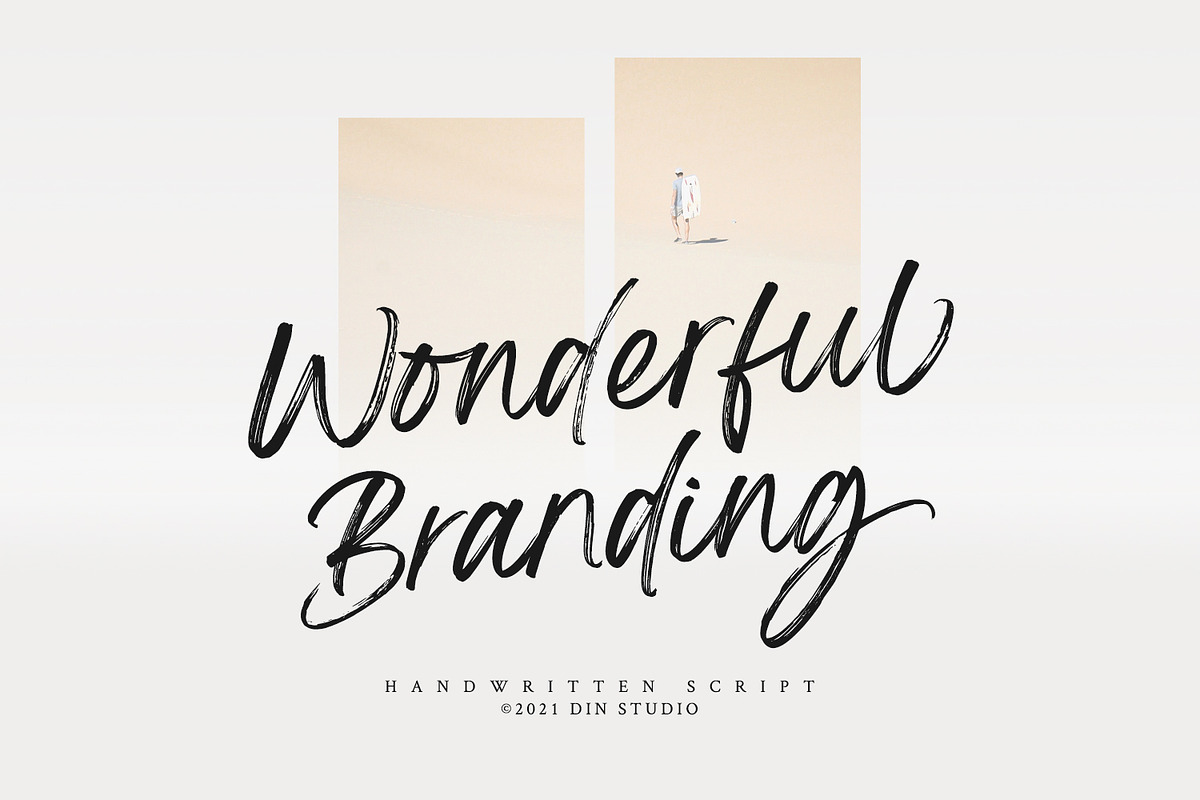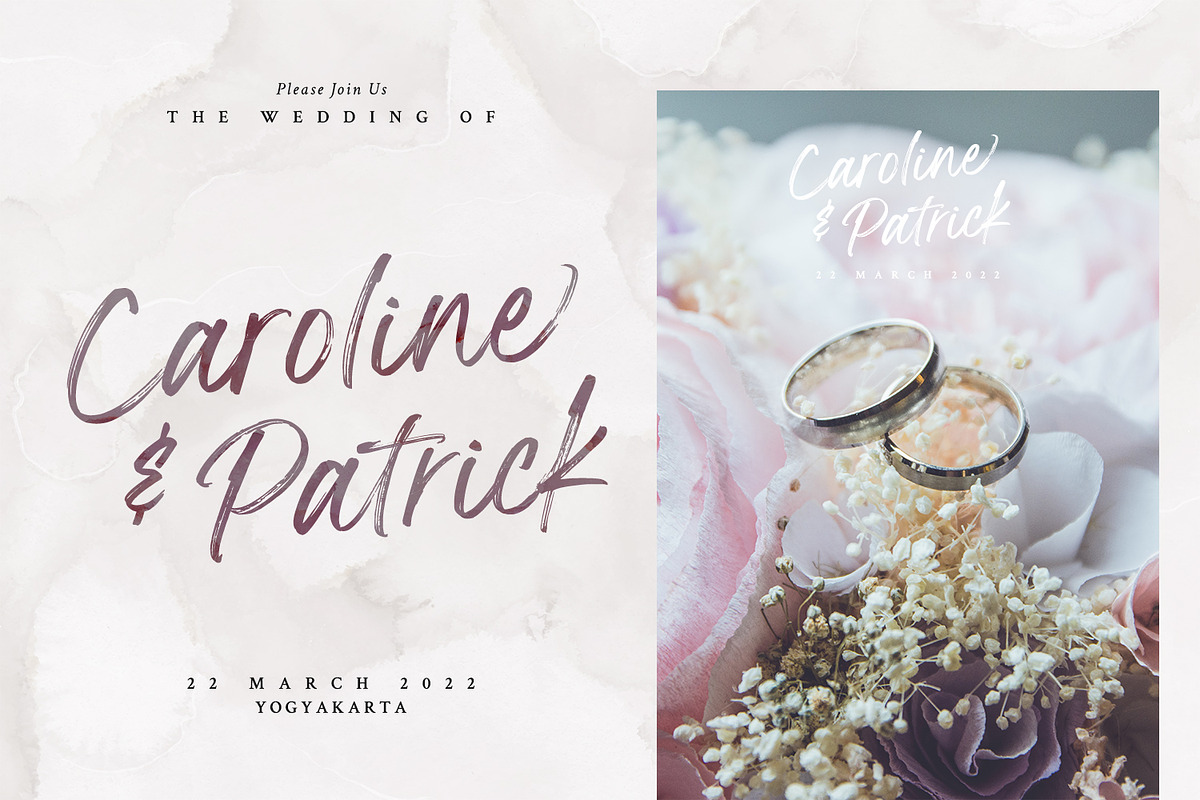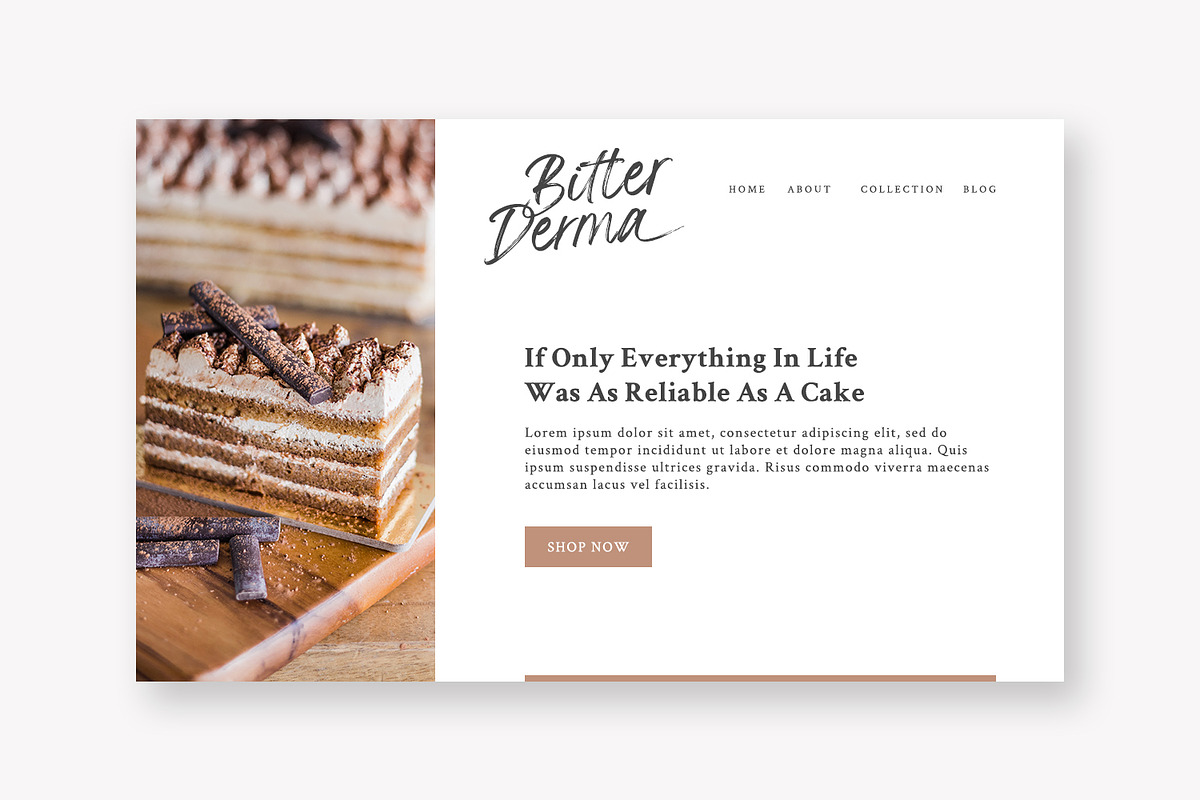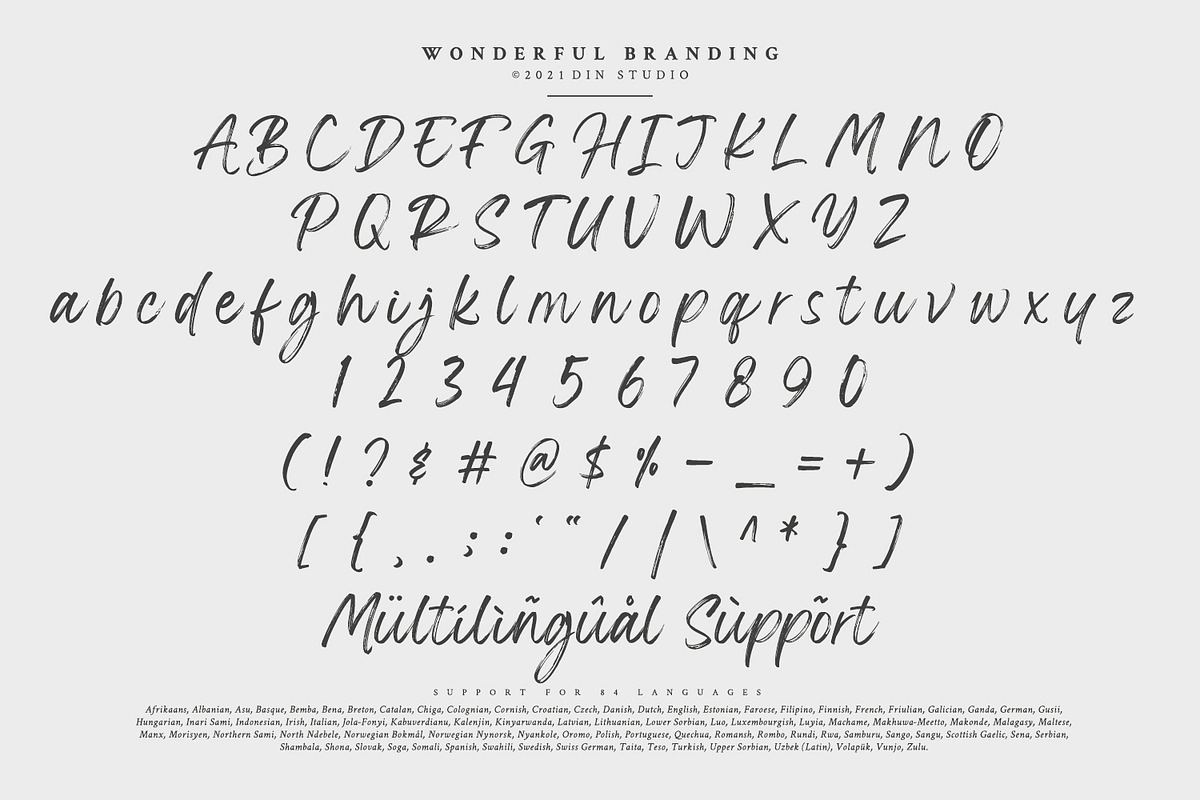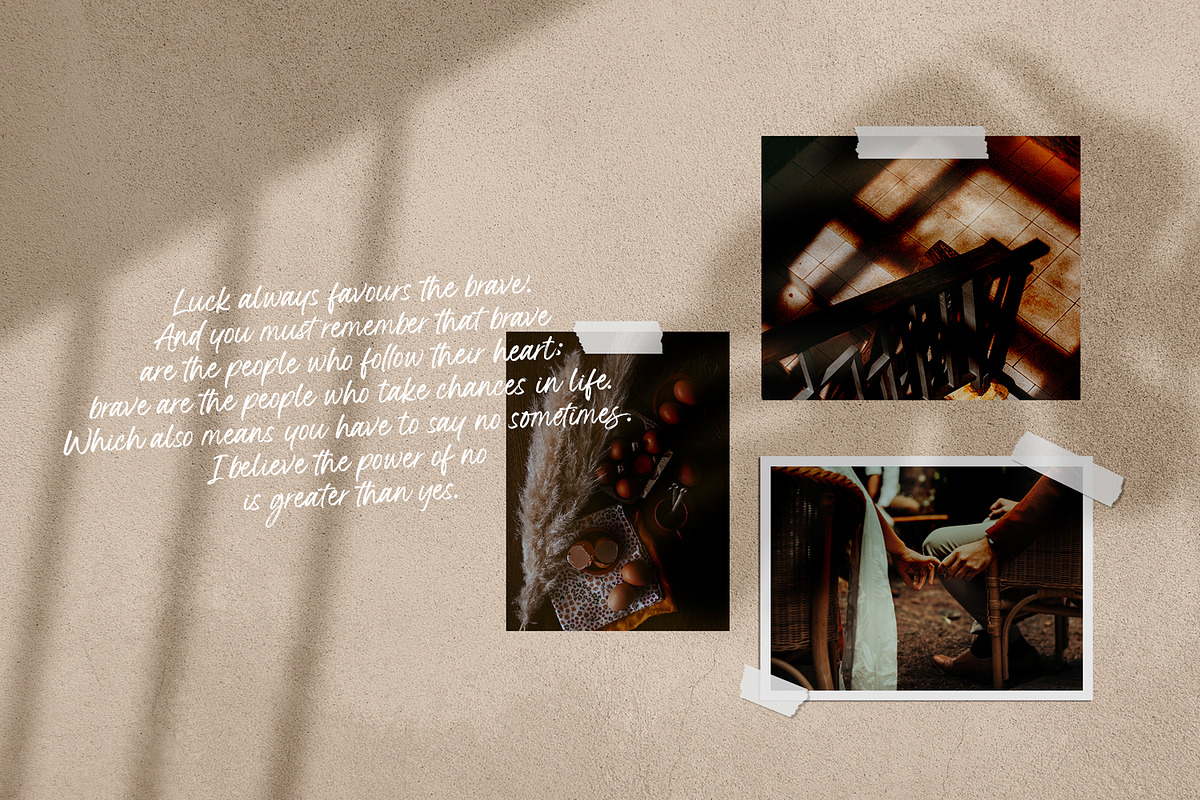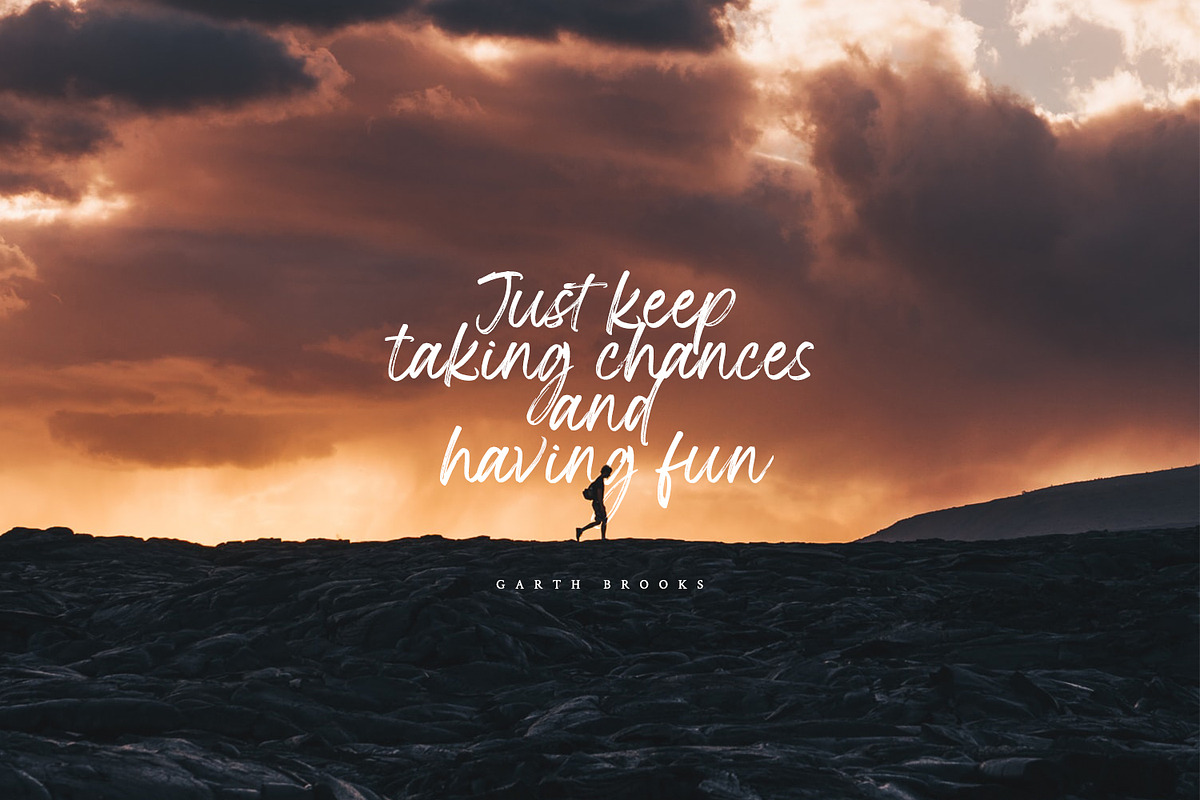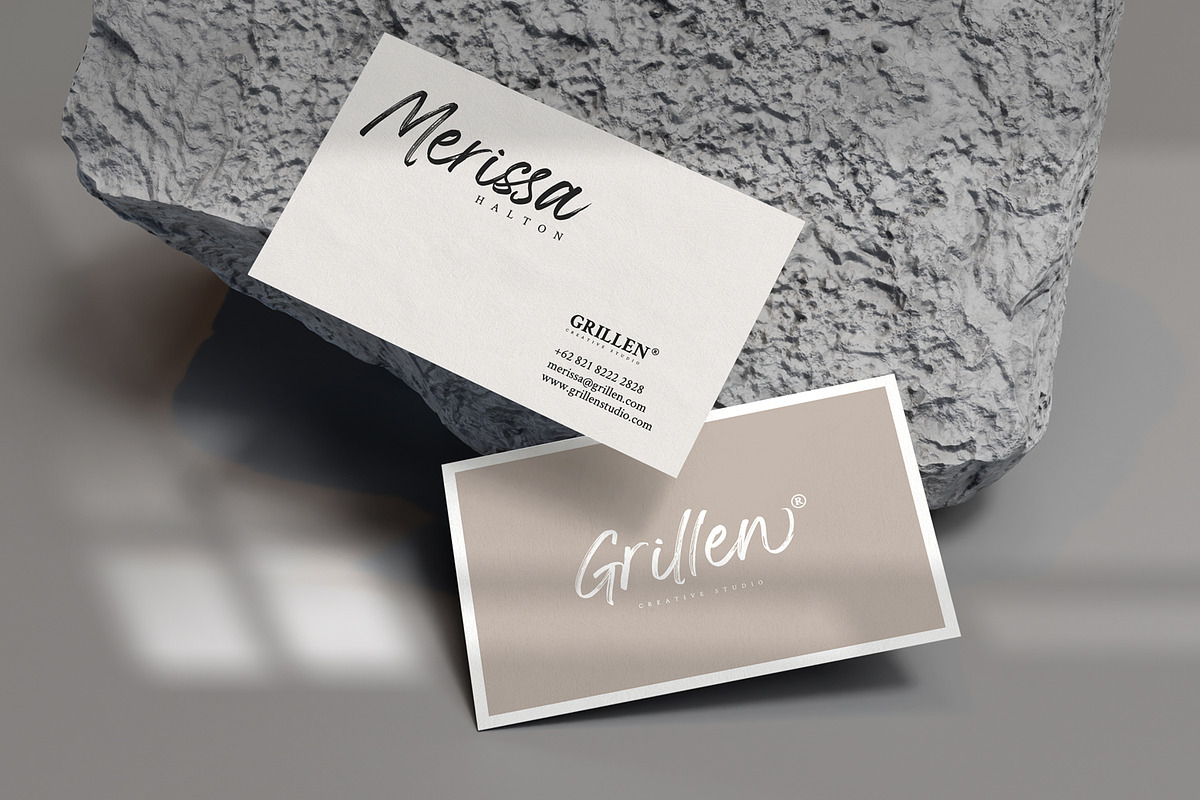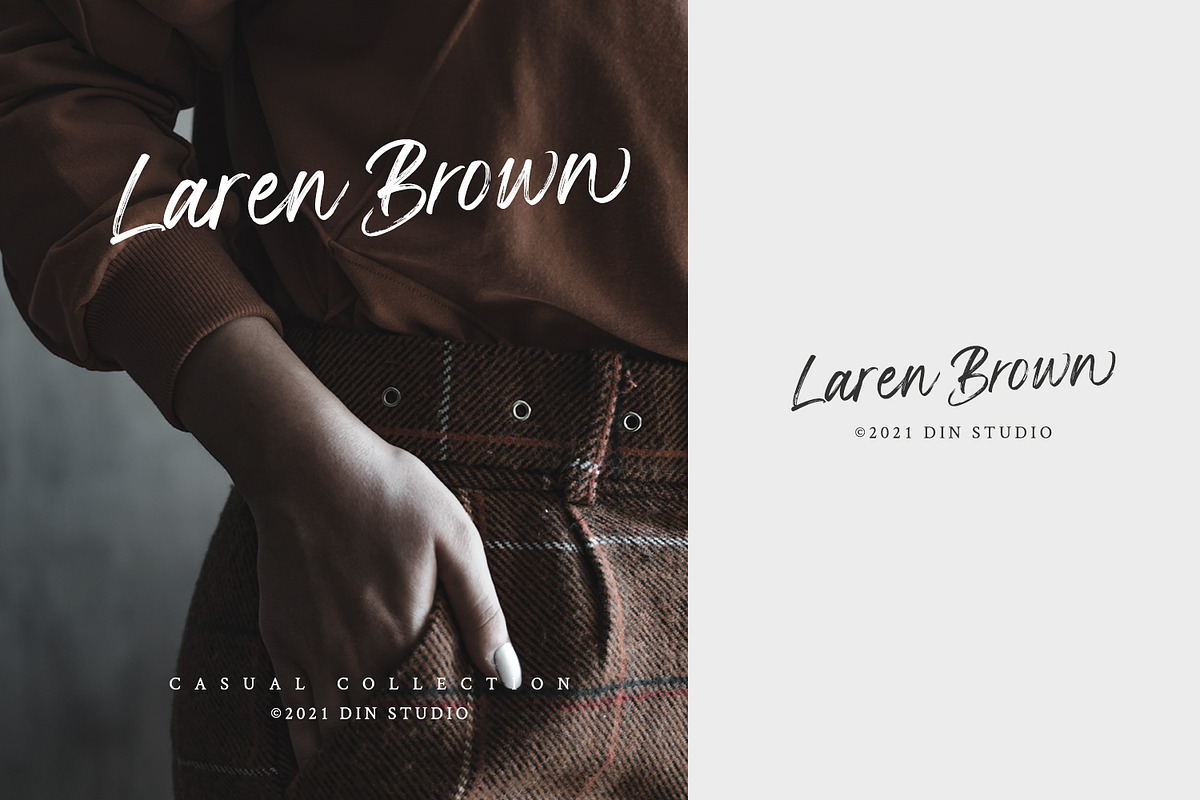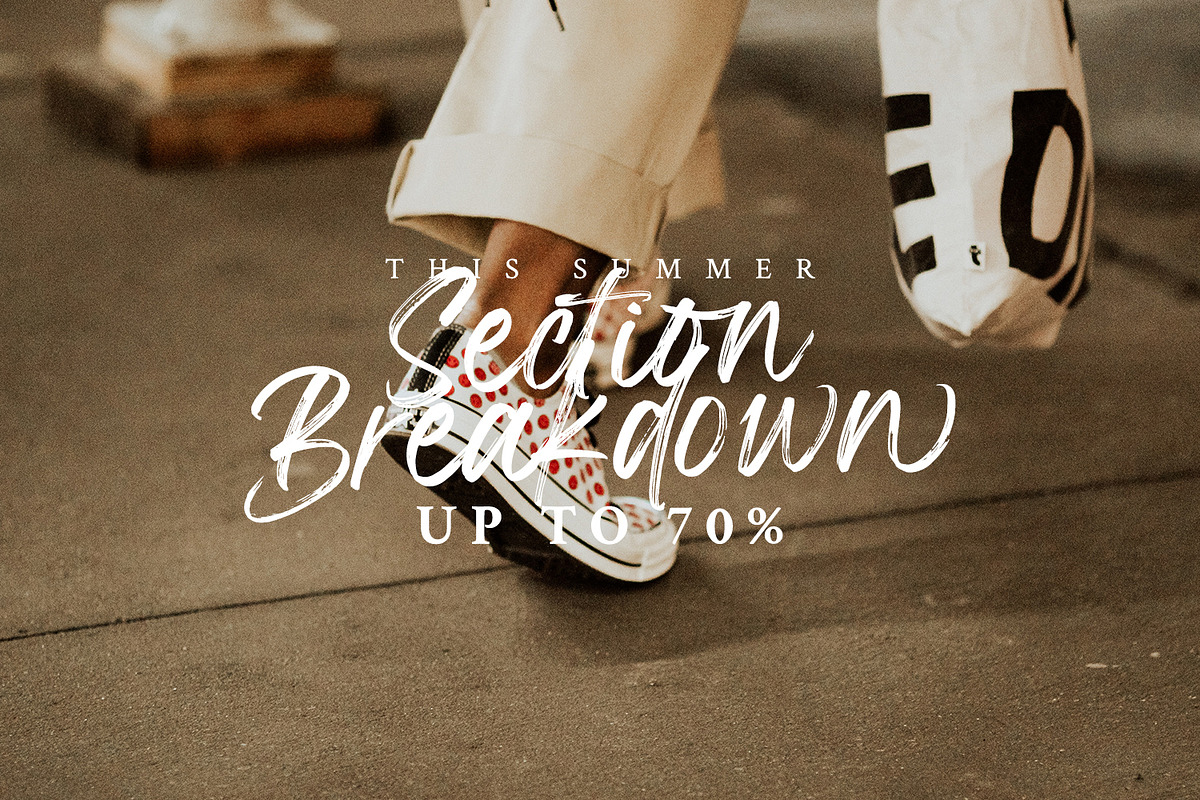
Wonderful Branding
Is your branding missing something wonderful that makes people going crazy impressed? Have you thought about how you can add that touch of that something to your branding and projects? Want to transport your audience to a world of gorgeous, elegant, wonderful, versatile, yet modern? Then, we have the solution for you. Introducing Wonderful Branding – A Handwritten Brush Font.
Giving you a simple, yet wonderful solution to your branding. This font is more than just another handwritten brush font. It encapsulates the essence of modernity and elegance. With elegance and passion edged into every curve and twist of this brush font – you’ll be sure to boost your sales and make the best impressions.
Beautiful Ligatures
Stylistic Sets
Multilingual Supports (84 languages)
Numerals and Punctuation
Wonderful Branding fits best for any design projects, such as posters, banners, logos, book covers, album covers, quotes, invitations, greeting cards, name cards, headings, printed products, merchandise, social media, etc. Find out more ways to use this font by taking a look at the font preview.